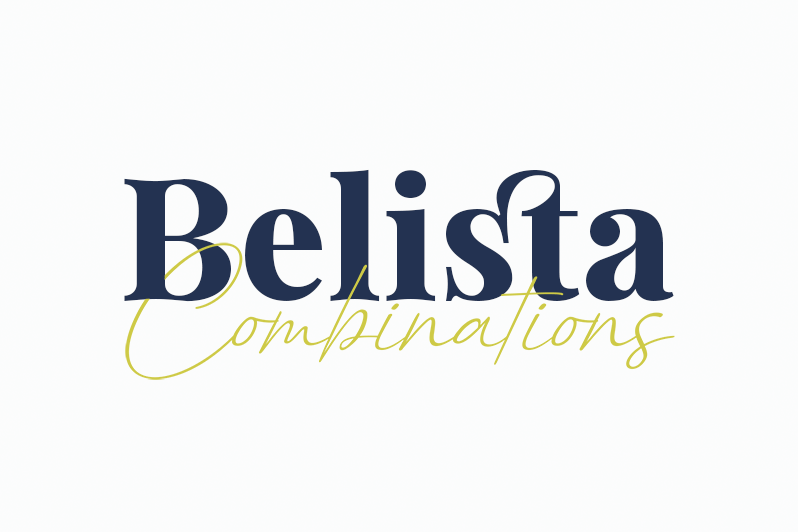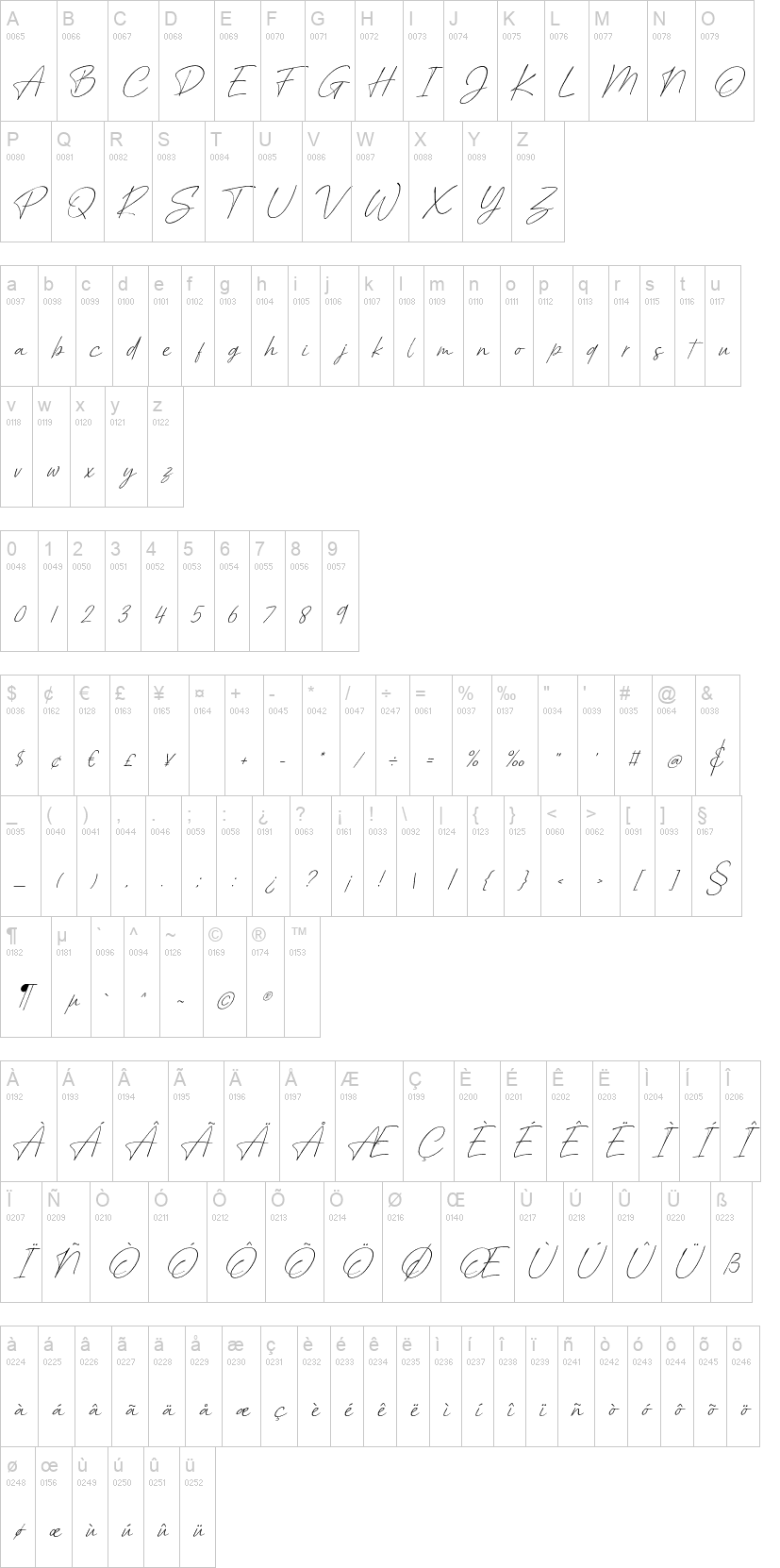
Belista Script
Note of the authorBelista is a lovely duo font (serif and script), comprising both elegance and assertiveness. Fall in love with its incredibly versatile style and use it to create gorgeous wedding invitations, beautiful stationary art, eye-catching social media posts, and much more!